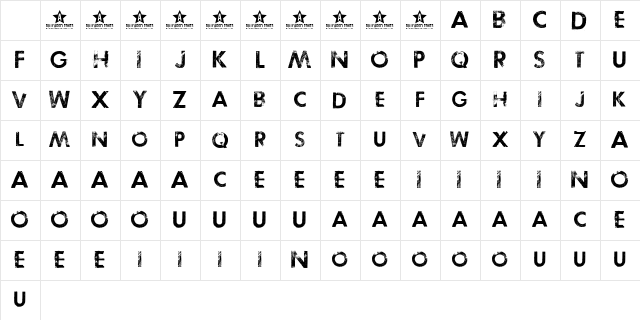
TOSCA ZERO Copyright (c) 2009 by Billy Argel. All rights reserved. Regular Free Font
TOSCA ZERO Copyright (c) 2009 by Billy Argel. All rights reserved. Regular
Foundry: Billy Argel
Designer: Billy Argel
Design Context for TOSCA ZERO Copyright (c) 2009 by Billy Argel. All rights reserved.
TOSCA ZERO Copyright (c) 2009 by Billy Argel. All rights reserved. is a composed and adaptable typeface that performs quietly and consistently across a wide range of design contexts.
Pro Tip: Use TOSCA ZERO Copyright (c) 2009 by Billy Argel. All rights reserved. in both headline and body roles to test its range before committing to a single application.